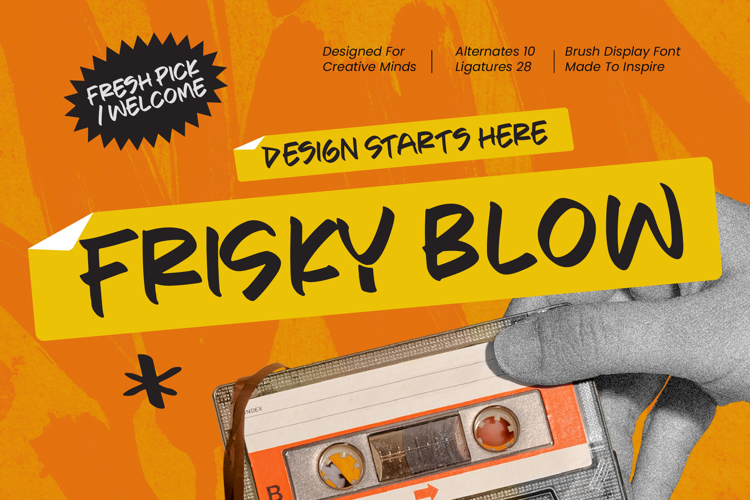
Frisky Blow - Brush Display Font
Elevate your creative projects with the raw, energetic aesthetic of a truly hand-crafted masterpiece. Frisky Blow - Brush Display Font captures the essence of authentic brush strokes, providing a dynamic energy that commands immediate attention. Its bold visual impact is perfect for designers looking to inject personality and a human touch into their digital and print compositions, ensuring your message is delivered with unmistakable confidence.
Engineered for high performance and global reach, this typeface offers unparalleled flexibility for modern designers. With its extensive multilingual support, Frisky Blow - Brush Display Font adapts seamlessly across global markets, making it incredibly versatile for international projects. The inclusion of 10 stylistic alternates and 28 professional ligatures ensures that every word remains unique, maintaining a natural flow and artistic rhythm that mimics genuine hand-painted lettering.